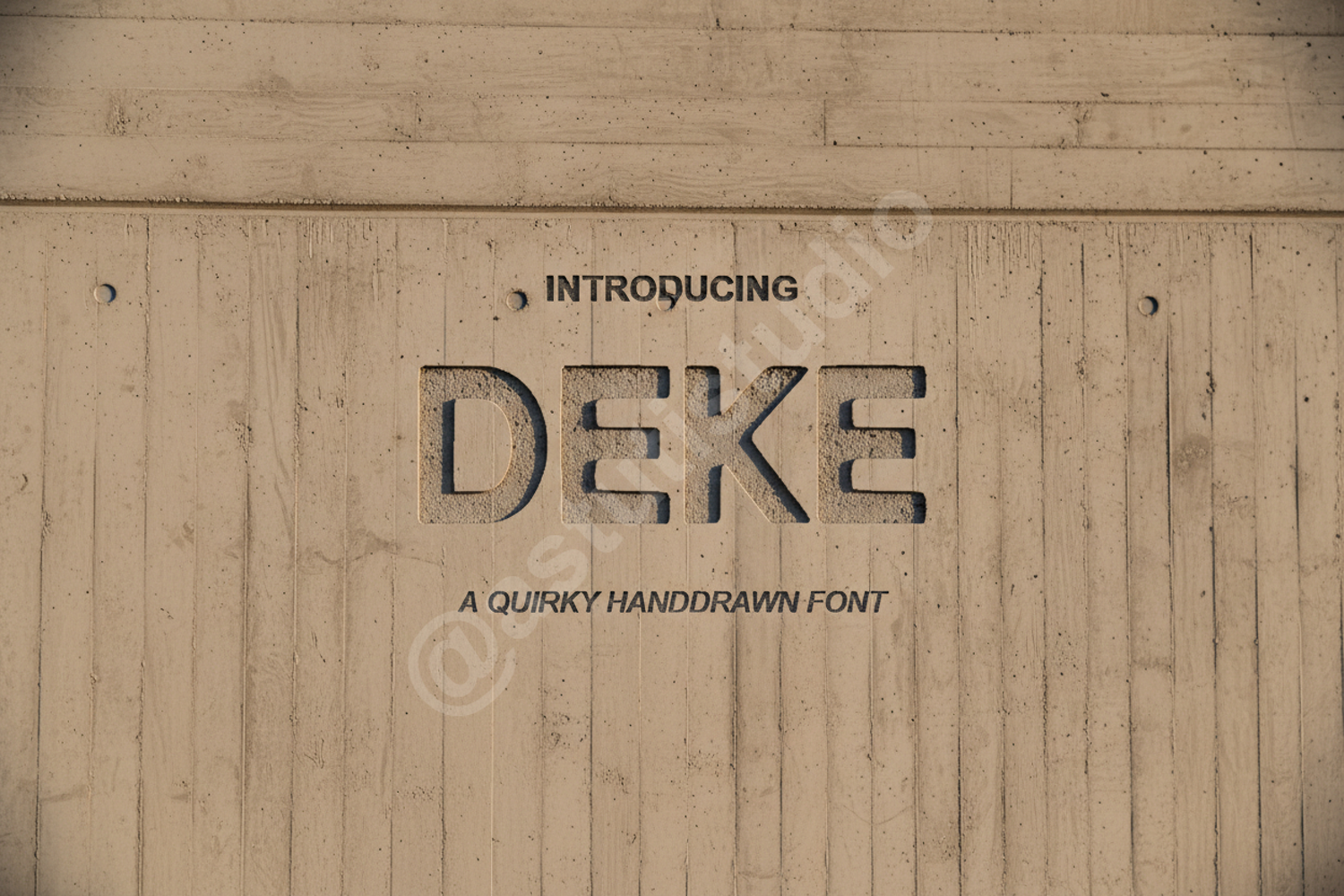
Deke - Modern Geometric Display Font
Deke
Elevate your design projects with Deke, a premium geometric display font crafted for clarity and modern sophistication. Deke combines sharp precision with a balanced aesthetic, making it an essential tool for designers who value clean, impactful typography. Its versatile nature allows it to transition seamlessly from bold headlines to refined brand marks.
- Full Uppercase and Lowercase character sets
- Comprehensive Numbers and Punctuation
- Extensive Multilingual Support for global projects
- Branding and Visual Identity: Create memorable logos and high-end corporate assets.
- Editorial Design: Perfect for sophisticated magazine headers and sleek layouts.
- Digital Marketing: Enhance social media graphics and web advertisements.
- Product Packaging: Add a contemporary feel to labels, boxes, and tags.
- Web Design: Ensure professional readability and style across all digital platforms.